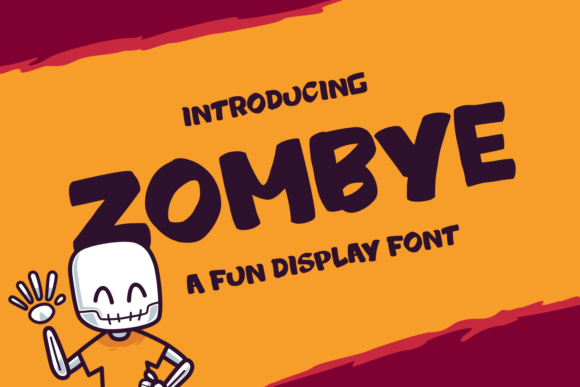
Zombye is a spine-chilling display font inspired by the haunting realm of Halloween. Crafted by the masterminds at tkztype, this font is the epitome of all things spooky, sure to cast a spellbinding charm over your designs.
With its eerie and whimsical style, Zombye is a font that dances between the worlds of the living and the undead. Its intricate curves and sharp angles evoke images of ghostly apparitions and forgotten graveyards, adding a touch of the supernatural to your creative endeavors.
Unleash your inner monster with Zombye, the perfect font for Halloween-themed designs, horror-inspired projects, and any occasion that demands a touch of the macabre. Whether you're creating social media graphics, website banners, or spine-tingling posters, Zombye will add an unforgettable spark of fear and delight to your creations.
Each letter of the Zombye font is a miniature work of art, carefully crafted to convey a sense of haunting beauty. The font's unique style is sure to grab attention and leave a lasting impression on your audience.
But Zombye is more than just a font; it's a portal to a world of endless creative possibilities. With its versatility, you can transform ordinary designs into extraordinary works of art, evoking emotions that range from the spine-chilling to the downright hilarious.
So, if you dare to venture into the realm of the supernatural, embrace the eerie allure of Zombye. Let this font become your creative companion, adding a touch of the unknown to your designs and leaving your audience spellbound.